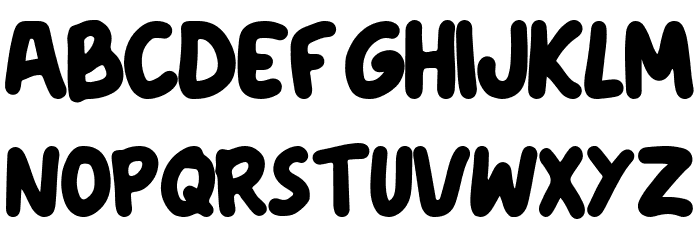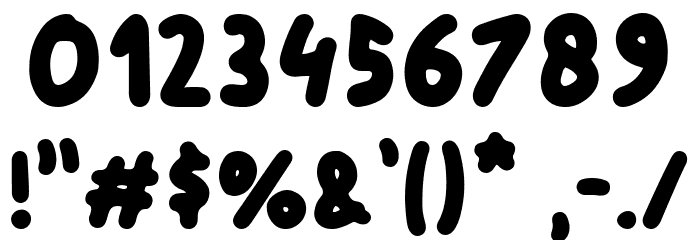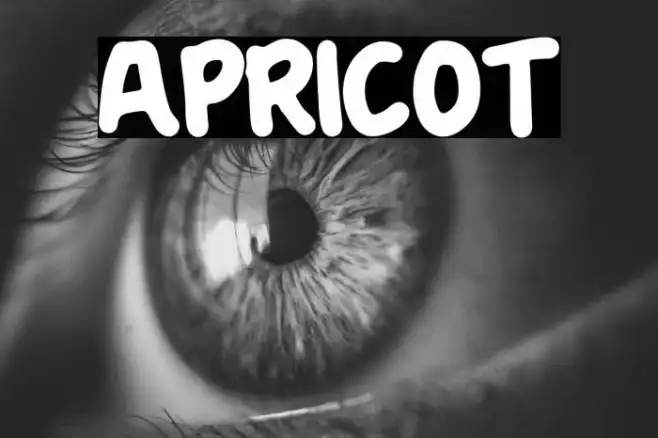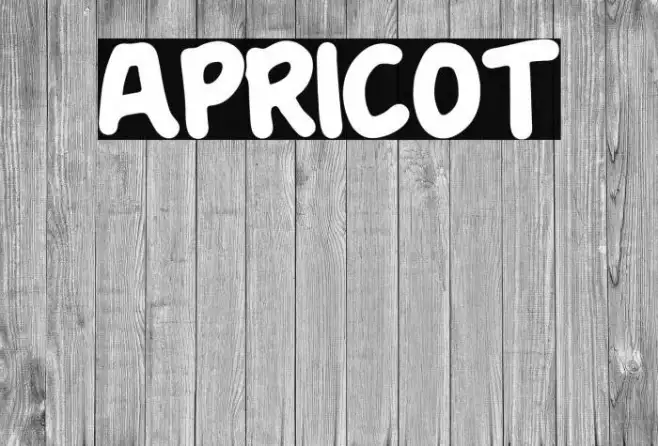
Apricot Font
This playful and bold font features rounded, thick strokes that give it a friendly and approachable appearance. The characters are uniformly bold with a consistent stroke width, creating a cohesive look across both uppercase and lowercase letters. The numbers and special characters maintain this style, ensuring readability and visual harmony. Its informal and fun style makes it ideal for projects that require a touch of whimsy and creativity. The font's design is reminiscent of hand-drawn lettering, adding a personal and unique touch to any text.
A playful, bold font with rounded, thick strokes for a friendly appearance.
- Font: Apricot
- Proposed Projects: Ideal for children's books, playful branding, posters, and social media graphics.
- Overall Style: Playful